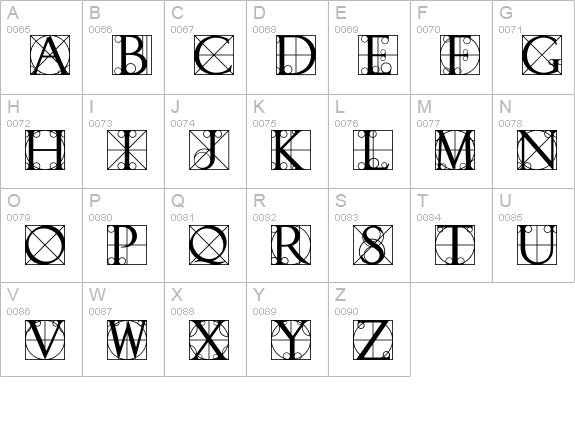
WalrodInitials is a stunning and elegant font that will add a touch of sophistication to any design project. With its intricate and flowing letterforms, this font is perfect for creating eye-catching logos, branding materials, and typography artwork. The clean lines and smooth curves of each letter give it a timeless and classic appeal. One of the best features of WalrodInitials is that it is absolutely free to download. You can easily access this font and enhance your design projects without spending a dime. By offering this font for free, it allows designers and creatives of all levels to have access to a high-quality and versatile typeface. Whether you are a professional designer or just starting out, WalrodInitials is a must-have font in your collection. Its versatility makes it suitable for a wide range of projects, from corporate designs to wedding invitations and everything in between. It effortlessly combines elegance with a touch of nostalgia, making it a perfect choice for both modern and vintage-inspired designs. To get your hands on this amazing font, simply visit FontsMarket.com, where it is freely available for download. Don't miss out on this opportunity to elevate your designs with the timeless beauty of WalrodInitials. Download it today and start creating stunning visuals that will leave a lasting impression.